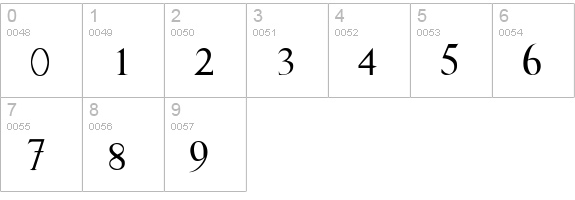
Blankboxer Font Details
Blankboxer font is a stylish and modern typeface that exudes creativity and sophistication. Featuring clean lines and a bold, eye-catching design, this font is perfect for a variety of projects, from branding to editorial design. The Blankboxer font is a versatile typeface that can be used for both display and body text, making it a great choice for any design project. Its unique character shapes and elegant letterforms add a touch of elegance to any design. What makes Blankboxer font even more appealing is that it is available for free download at FontsMarket.com. This means that you can easily access this stunning font and use it in your designs without any cost. So don't miss out on the opportunity to elevate your projects with the beautiful Blankboxer font - download it for free today!